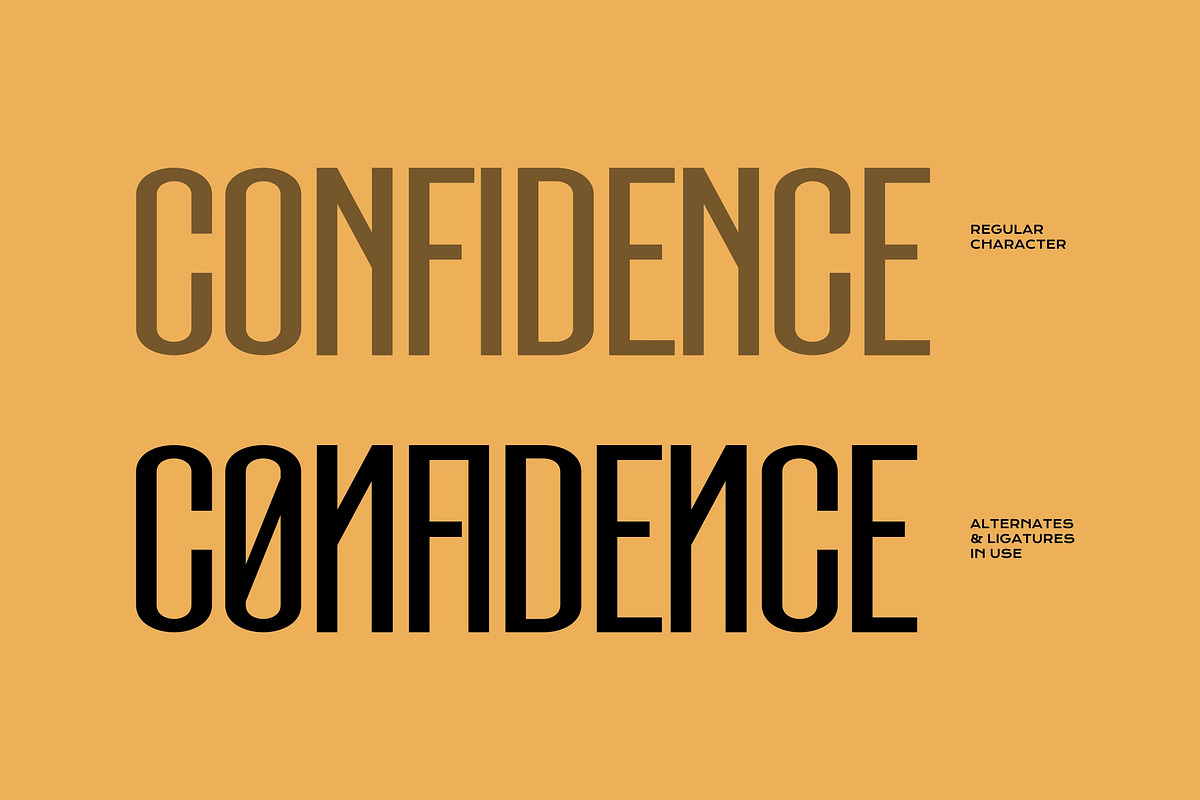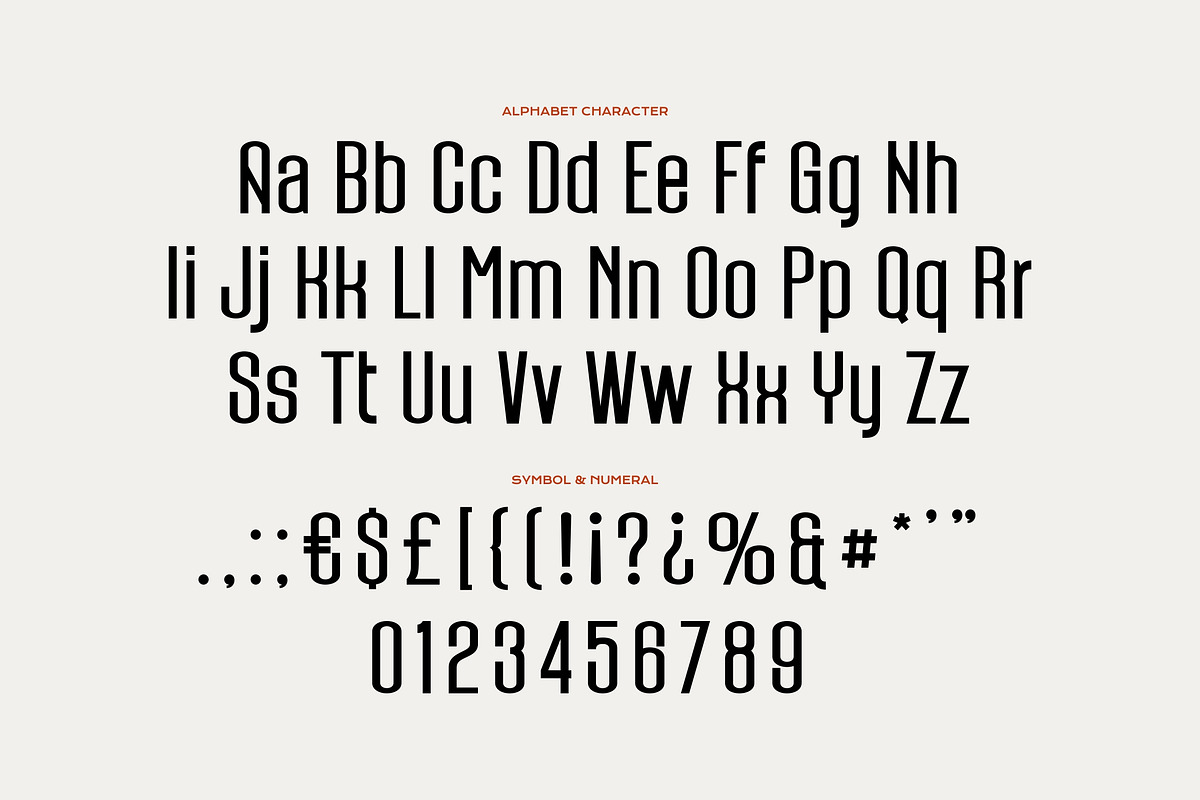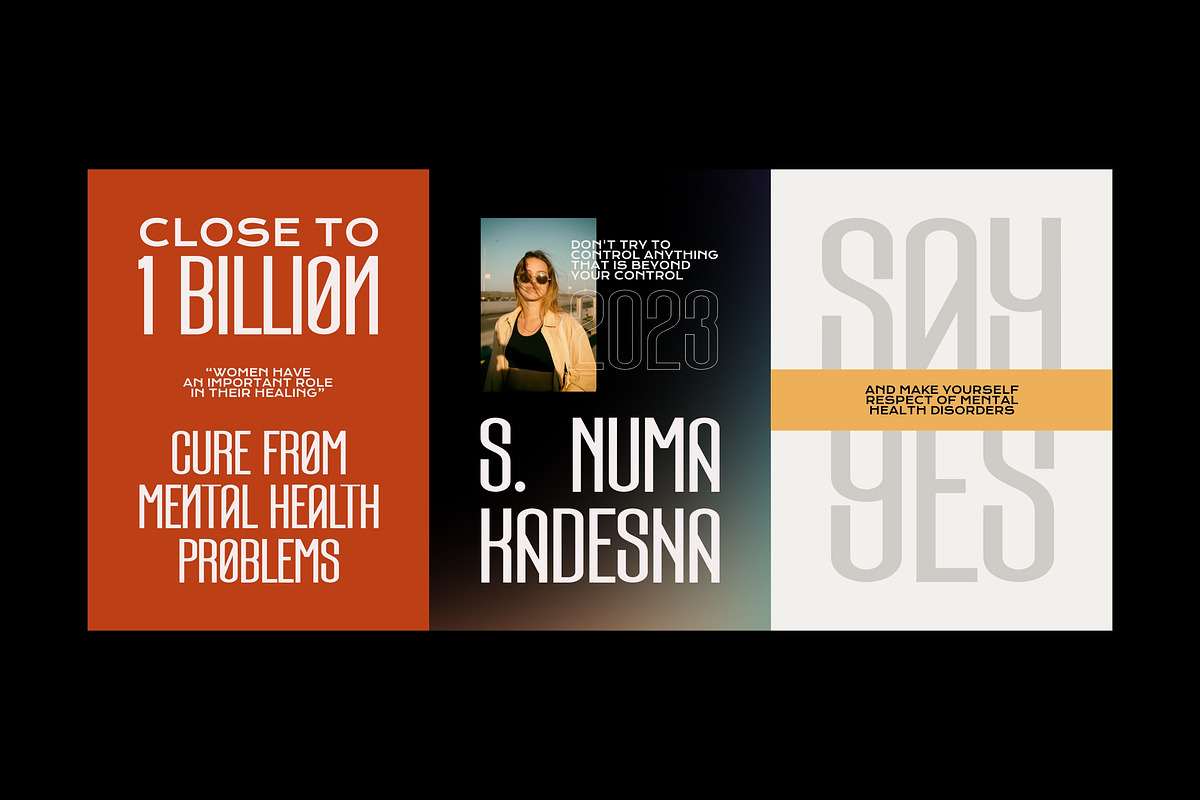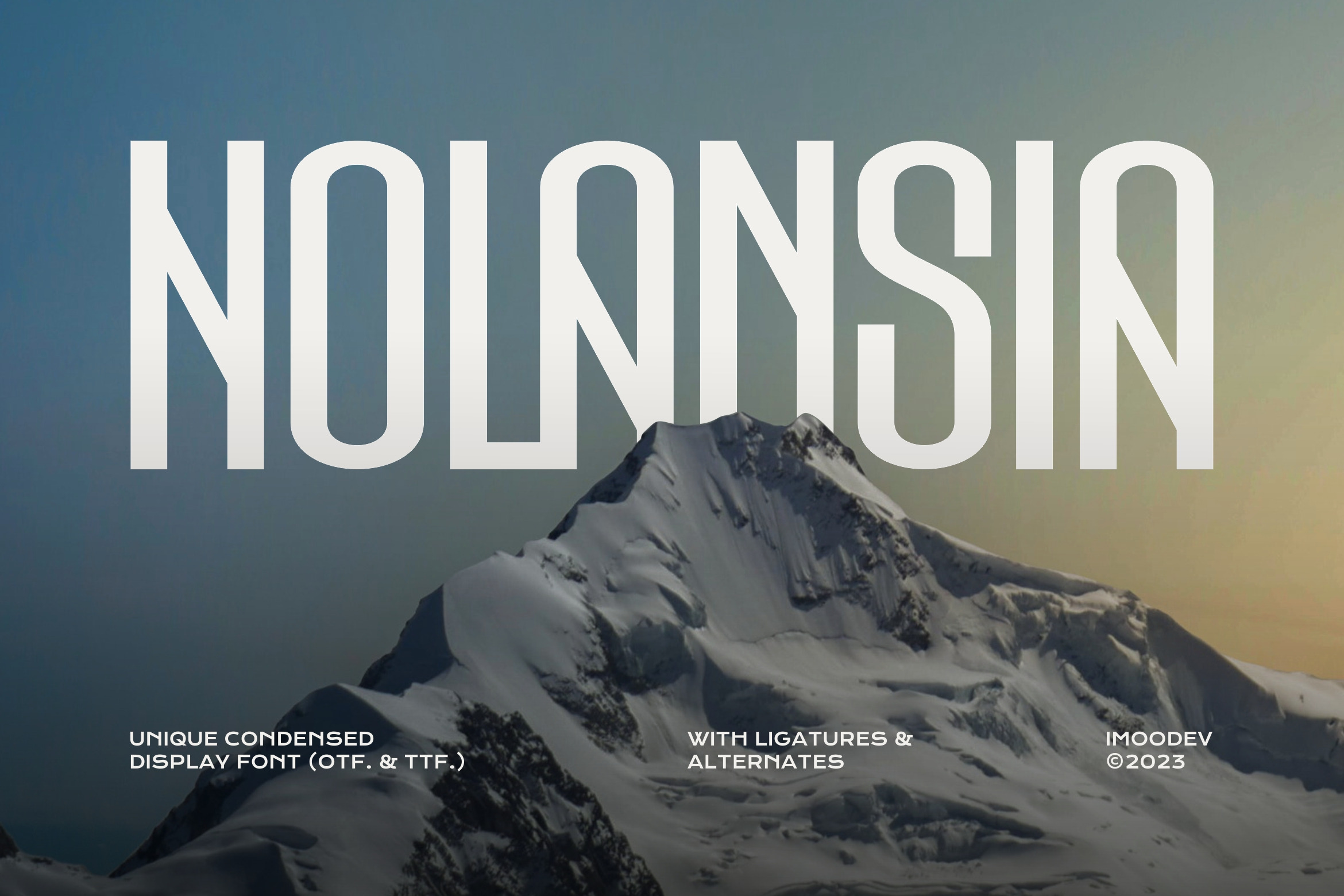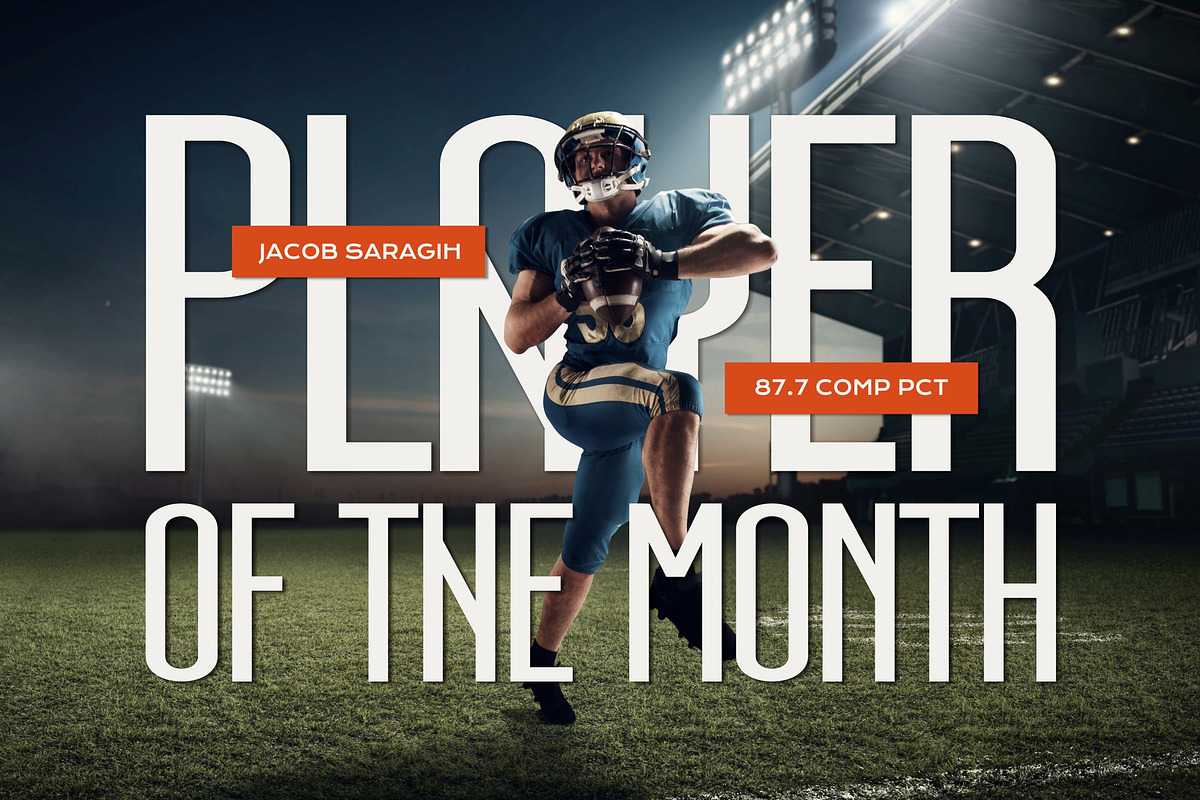
Holansia - Tall Condensed Font
Introducing Holansia, a powerfully condensed display font that masterfully blends clean and modern aesthetics, stylistic details. Its tall, bold letterforms command attention, making it the perfect choice for impactful headlines, striking logos, and memorable branding.
Holansia is incredibly versatile. Its commanding presence is ideal for sports branding, magazine headlines, movie posters, and social media graphics. Its clean legibility also makes it a fantastic choice for website headers, product packaging, and editorial layouts that require a touch of modern elegance.
- Uppercase and Lowecase Characters.
- Numerals and Punctuations.
- Alternates and Ligatures.
- Multilingual Support.